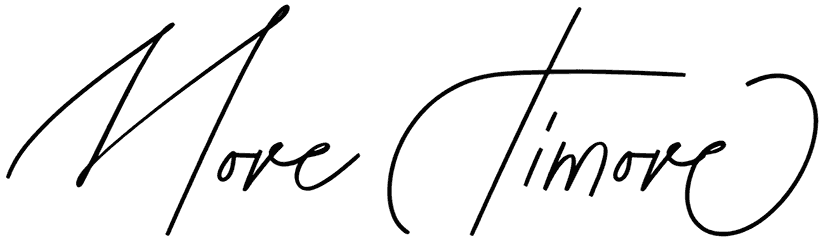
More Timore Font
Would you like casual and chic lettering for your novel layout? This signature font, named More Timore, with its delicate and smooth face, can cause this to happen. As a calligraphy font, More Timore font, with almost full support of characters, will work well to illustrate your projects, namely branding, tattoos, posters, and along with others.